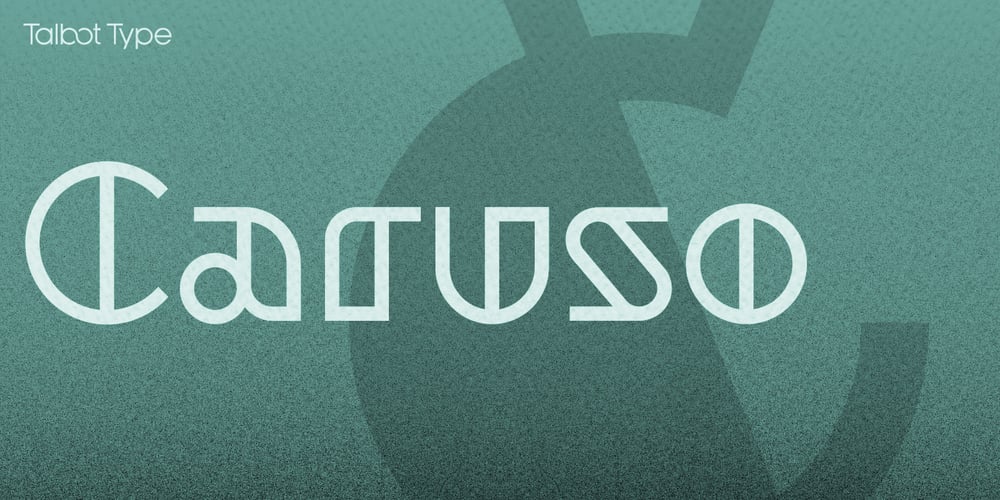
Caruso White Font Family was designed by Adrian Talbot and published by Talbot Type. Caruso White contains 2 styles and family package options. Caruso White is a sharp, geometric display font with an Art Deco flavour. Unlike Art Deco styles of the 1920s and 30s, it comes with full upper and lower case sets and accented characters for all Western ad Central European languages making it a genuinely practical font. It’s also available as an solid variation – Caruso Black.